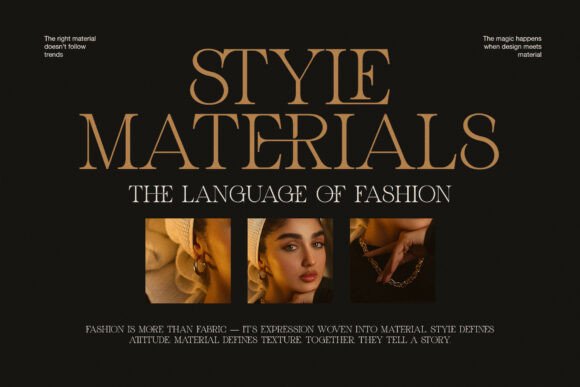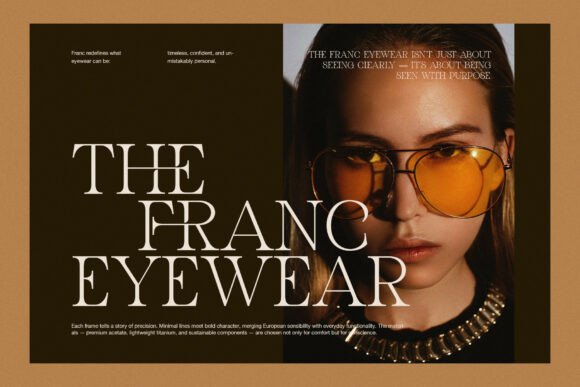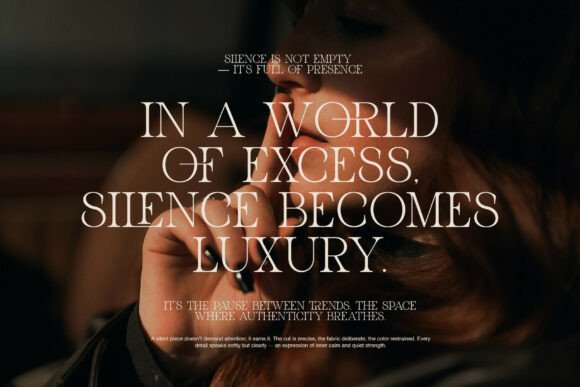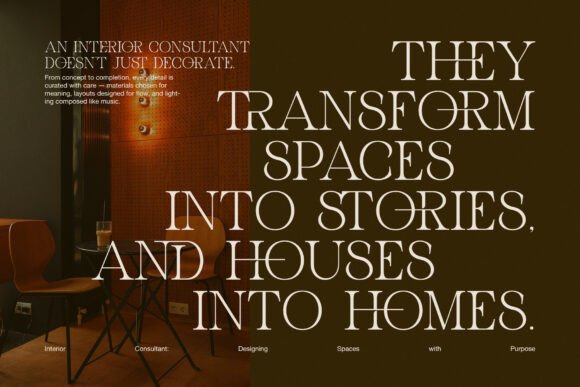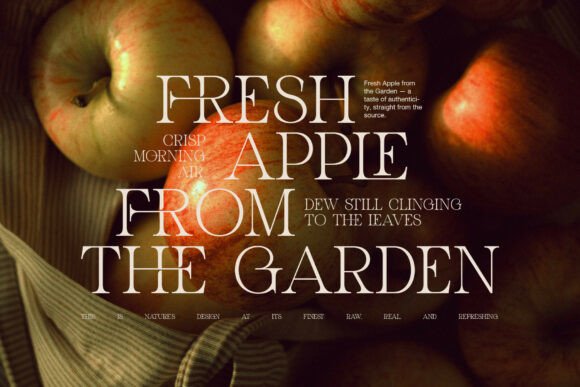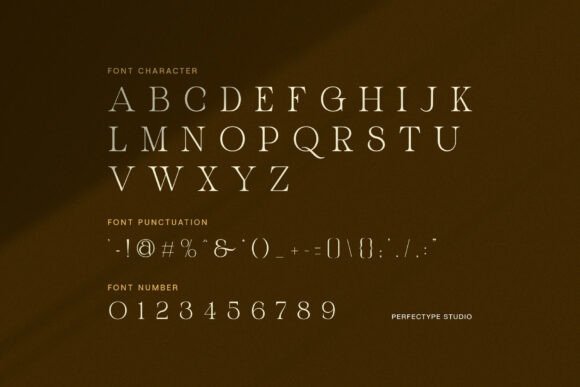
Introduction to Ghond Font
Ghond is a modern elegant serif font that combines luxury, minimalism, and precision.
Each letterform features graceful curves and geometric balance, making it perfect for designers seeking a refined, high-end aesthetic The fontโ€™s clean structure and unique ligatures give it a distinctive look that enhances sophistication and style.